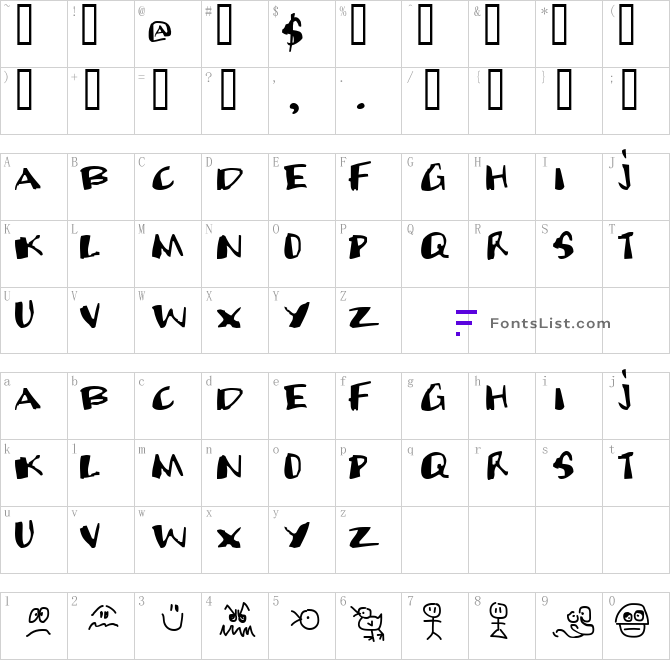
- Font Name:Candy Sniper
Candy-Sniper.ttf is a very beautiful artistic font, Candy-Sniper.ttf is widely used in the design and printing of various books and pictures,Candy-Sniper.ttf has a strong visual impact,Candy-Sniper.ttf is a commonly used font in newspapers, magazines and books, and is used in posters, e-commerce Poster design, store design, logo design, font design and other fields.Candy-Sniper.